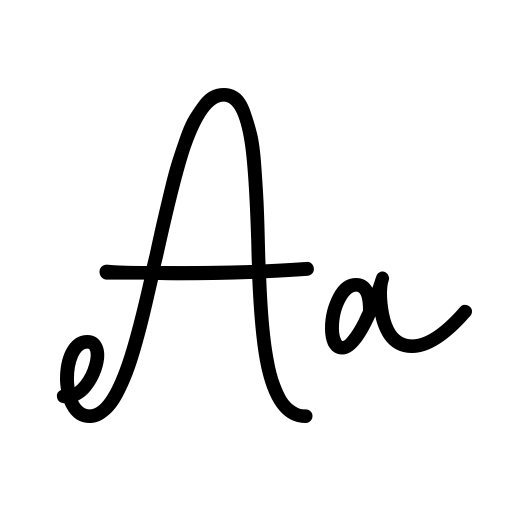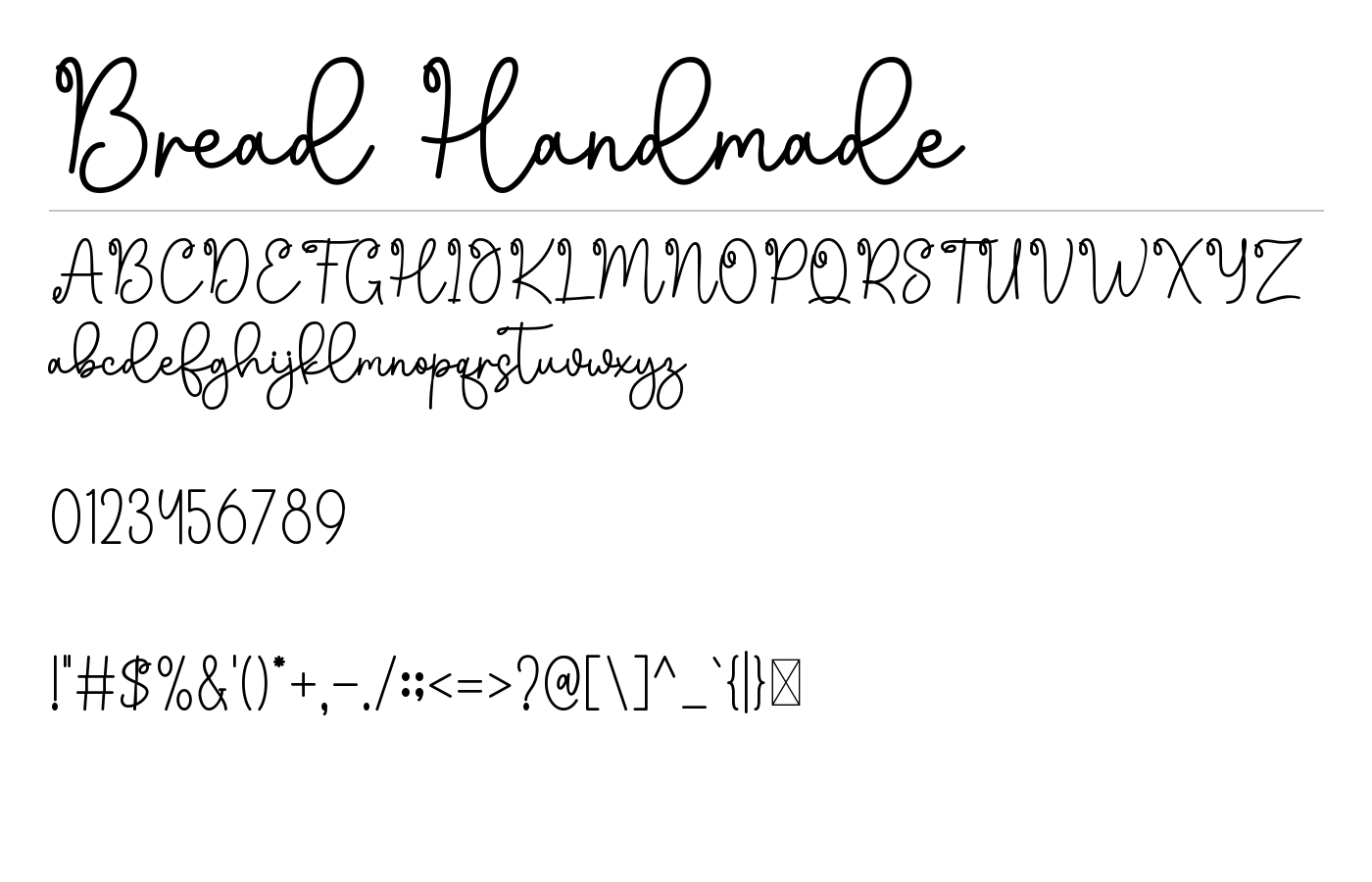
Bread Handmade is a light, whimsical script font with a delicate, hand-drawn feel that combines playful curls and loops with a casual yet elegant flow. Its narrow width and fine lines make it perfect for adding a personal, creative touch to branding, invitations, and packaging where a charming and approachable style is desired. This font works beautifully in designs that seek to evoke warmth, friendliness, and artisanal craftsmanship.
Bread Handmade Font
About Bread Handmade Font
| Font family | Bread Handmade Font |
| Designer | Wahyu Setiyawan |